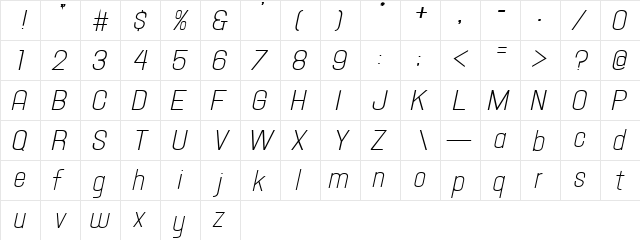
Hallandale Text Italic JL Regular
Design Context for Hallandale Text Italic JL Typeface
Hallandale Text Italic JL takes a measured approach to typography — its balanced proportions and neutral character make it a reliable workhorse for both digital and print work. Its italic angle brings a sense of urgency and motion to the letterforms.
Pro Tip: Try Hallandale Text Italic JL for annotation and caption copy alongside an upright companion — the contrast in angle creates a dynamic but ordered typographic system.